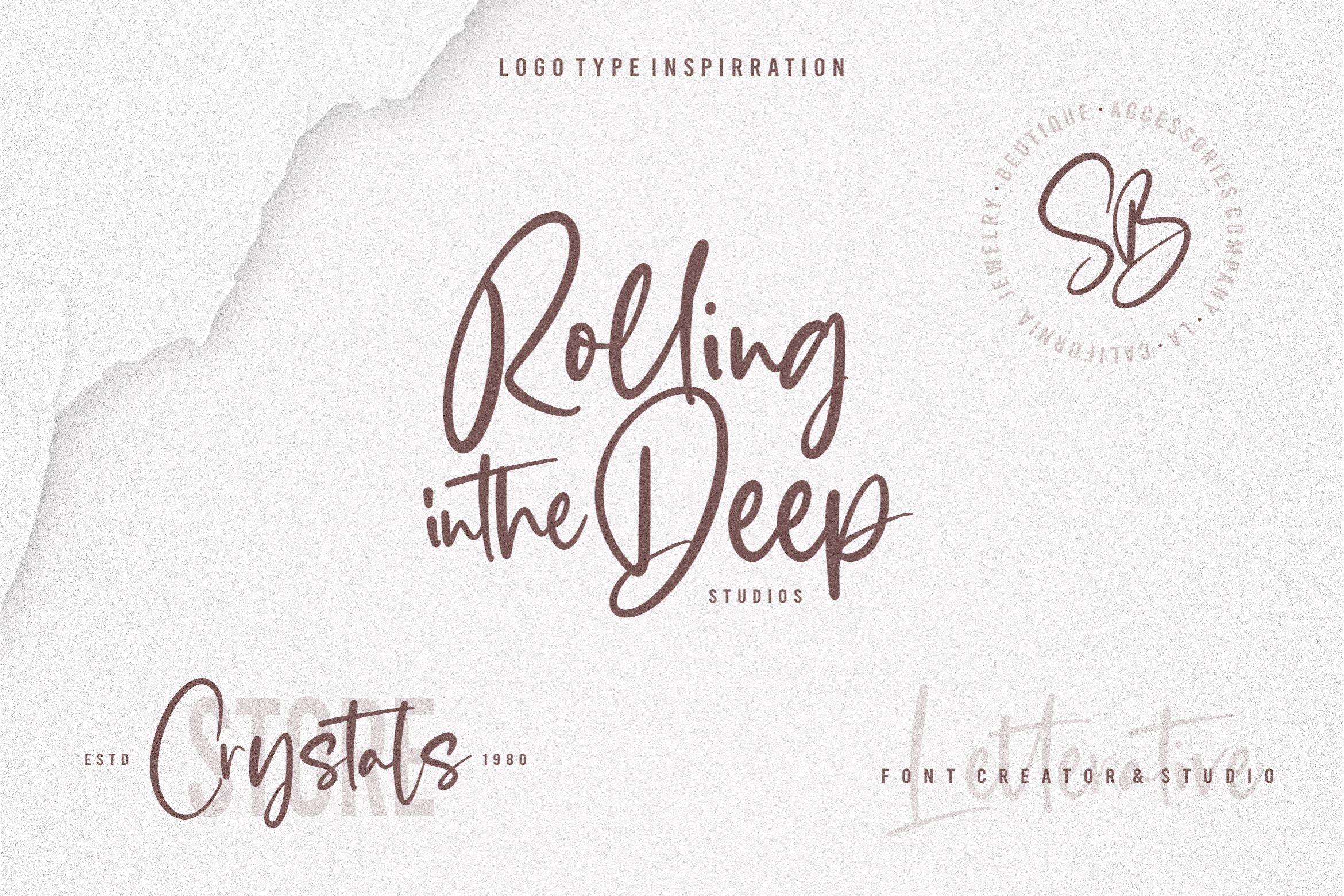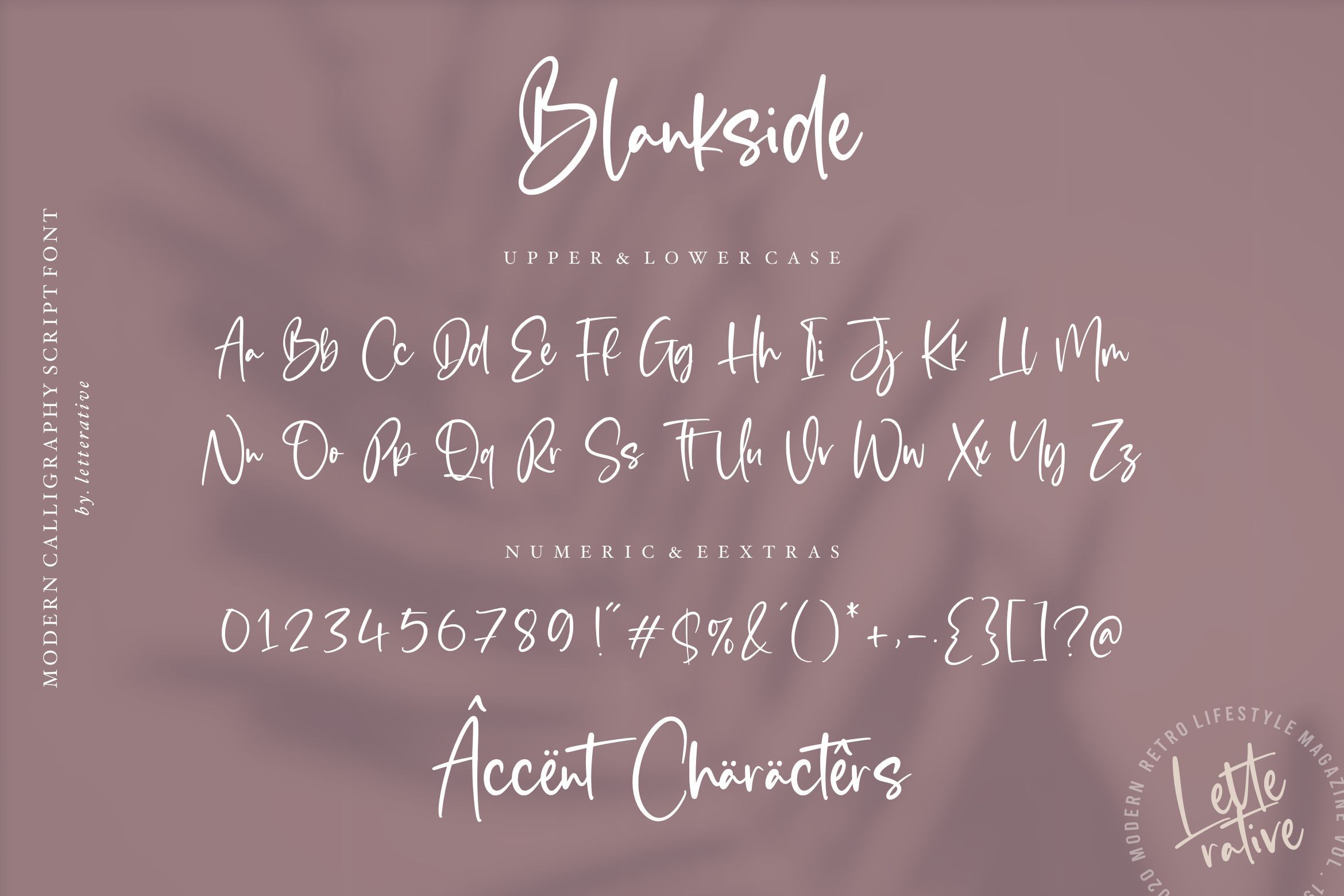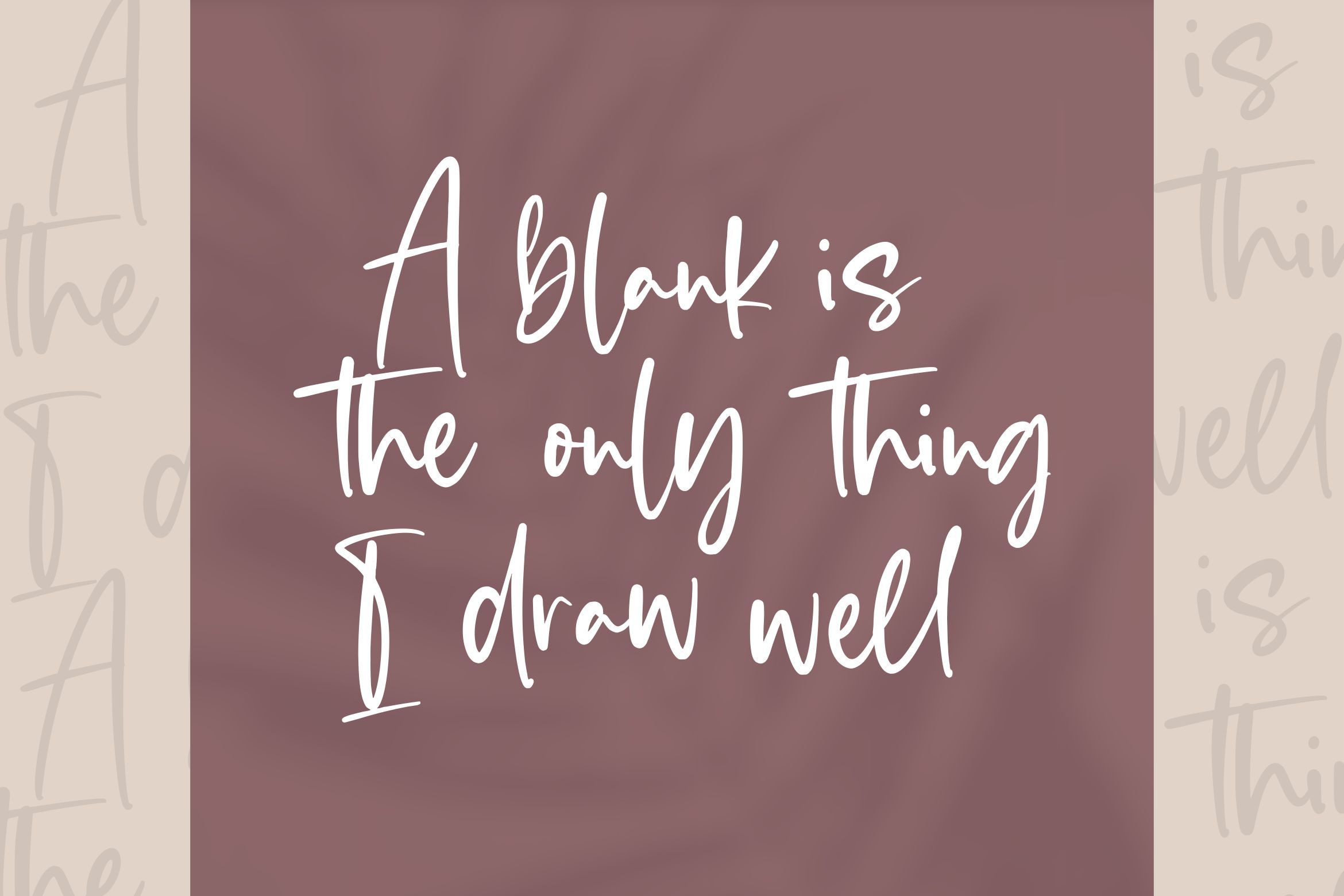
About Blankside Modern Calligraphy Font
Introducing by Letterative Studio : Blankside Font Blankside is a Modern Calligraphy Font Blankside is a cute and asymmetrical handwritten font. It looks stunning on wedding invitations, thank you cards, quotes, greeting cards, logos, business cards and every other design which needs a handwritten touch. This font includes : TTF and OTF Blankside also multilingual support Enjoy the font! Feel free to comment or feedback Send me PM or email Thank you!